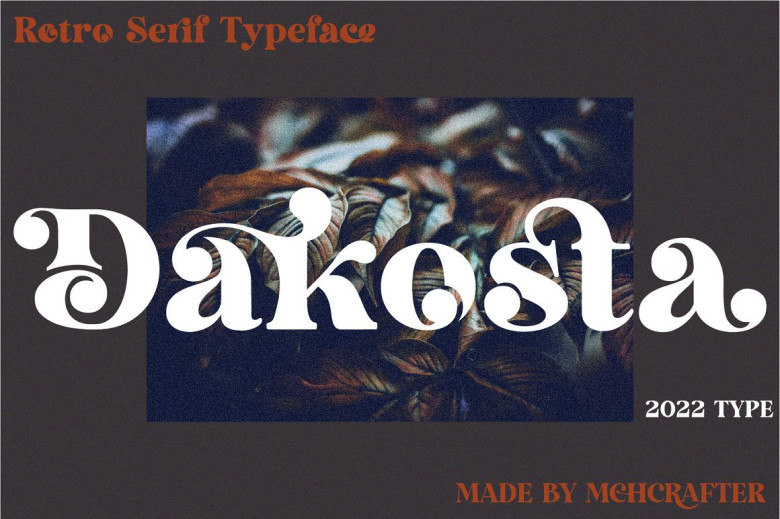
Dakosta Font
Dakosta Font is an ultramodern serif typeface created especially for branding, featuring unique alternative ligatures and shapes to elevate any brand’s appearance. Dakosta Font offers various options to modernize and stylish up any product’s appearance while giving designers and owners of products options for modernizing and trendy appearance.
All ligatures and alternate characters have been provided so you can design infinite variations to meet artistic demands.
Dakosta Retro Serif Font